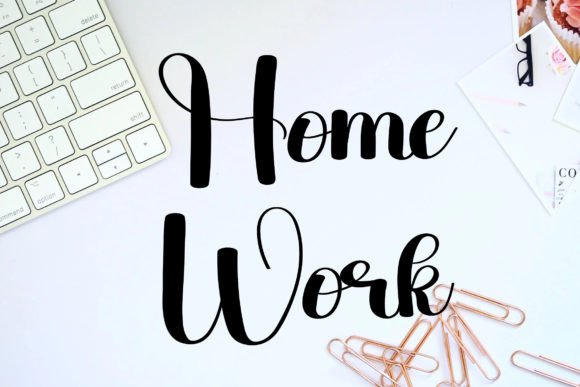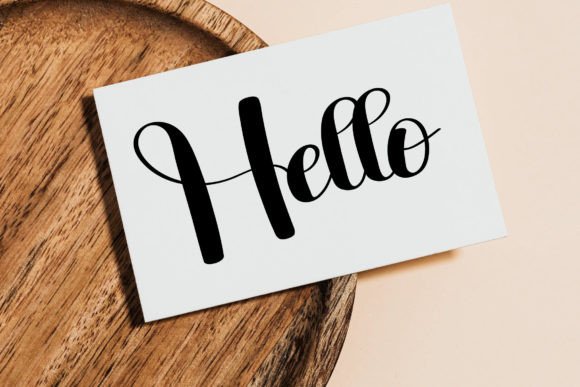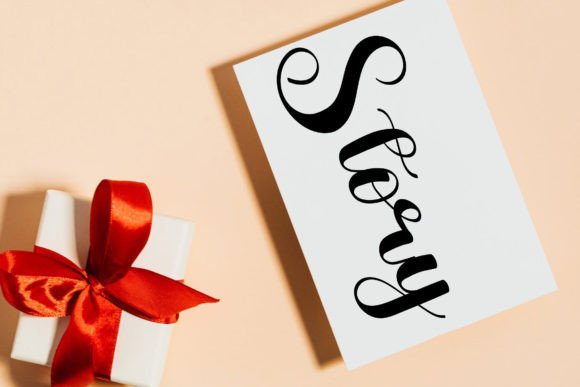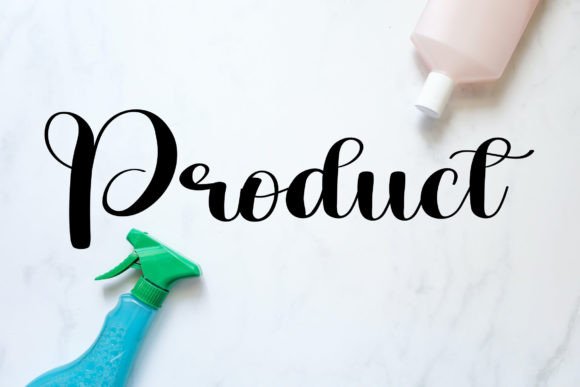
Introduction to Extended Font
As a designer, have you ever been in the middle of a creative project, pouring over design resources, searching for that perfect font to bring your vision to life? You finally find it – a beautiful, elegant script font that exudes class and sophistication. This is where Extended Font comes in – a stunning, high-quality font that’s sure to elevate your designs and leave a lasting impression.
With its modern look and versatility, Extended Font is a valuable asset for designers. Whether you’re working on a logo, branding, invitation, or social media post, this font is sure to make a statement. And the best part? You can use it with a transparent background, allowing your design to shine through. In this article, we’ll dive deeper into the world of Extended Font and explore its many uses, as well as how to get your free download.
- Unique Characteristics: Extended Font features unique and creative font designs that can help designers stand out in their projects.
Honest Review: Extended Font
As a designer, I’m always on the lookout for high-quality design resources that can elevate my creative projects. I recently came across Extended Font, and I’m excited to share my honest review with you.
- High-quality typography: Extended Font offers a wide range of fonts with precise and clear typography, making it perfect for professional projects.
- Limited customization options: While the font styles are great, the customization options are limited, which might not be ideal for designers who like to experiment with different font combinations.
Overall, I’m impressed with Extended Font, and I think it’s a great addition to any designer’s toolkit. While it has some limitations, the high-quality typography and free download make it a worthwhile resource for any creative project.
The Extended Font is ideal for creative projects that require a high-quality, versatile font with a transparent background. Some common use cases include:
- Graphic design projects
- Web design projects
- Print design projects
- Document design projects